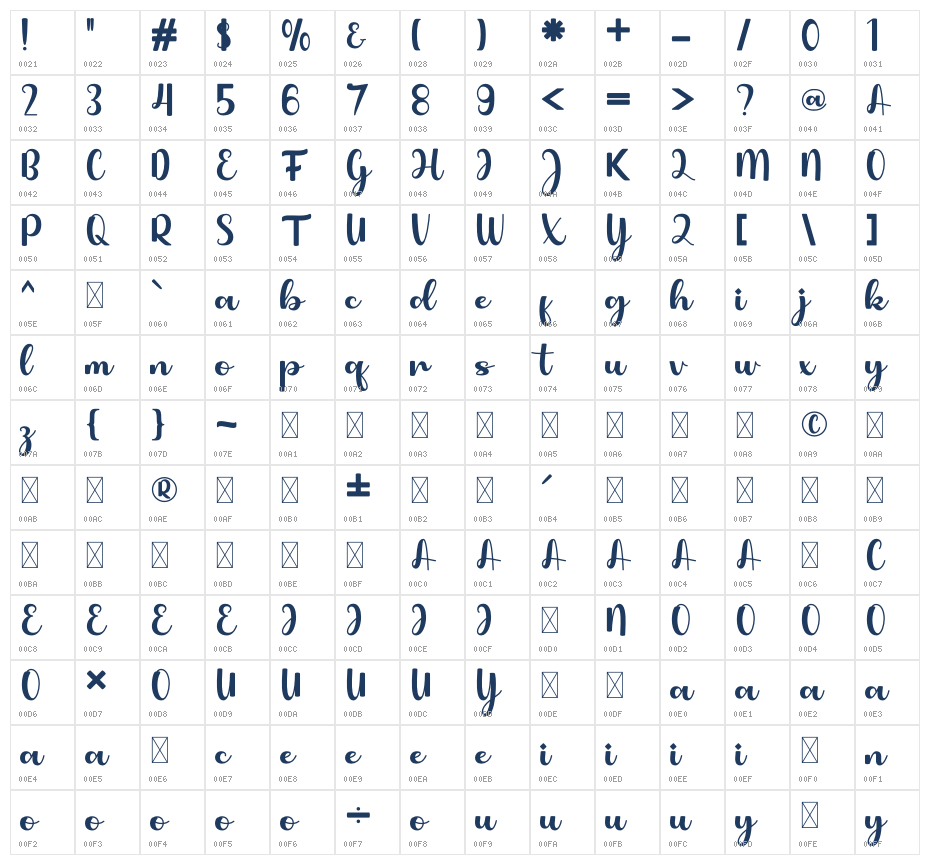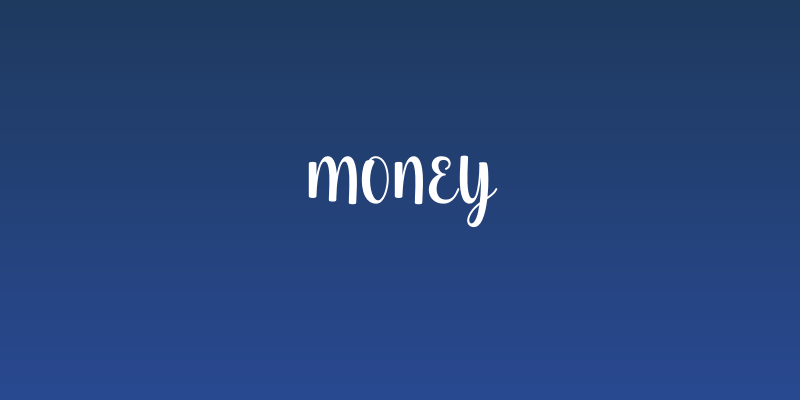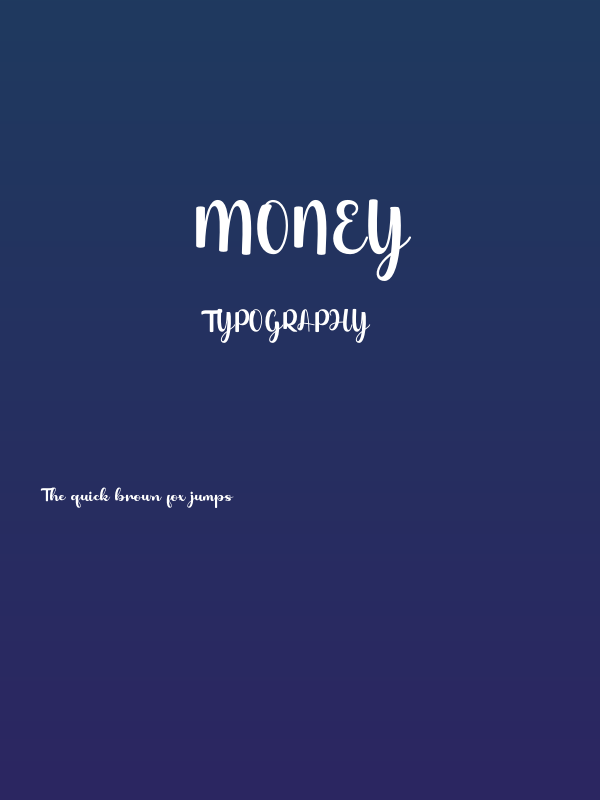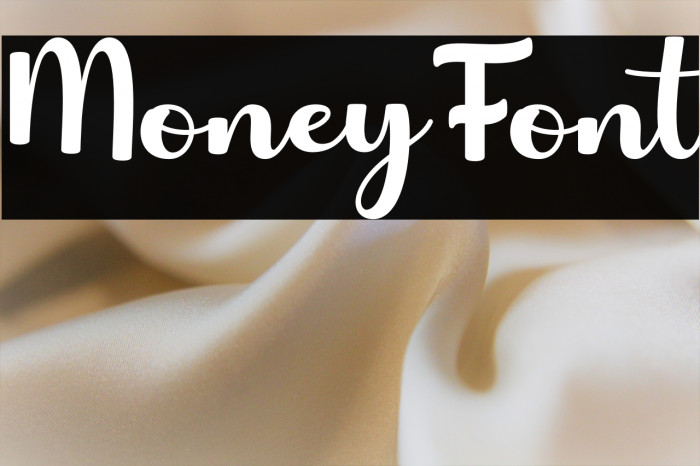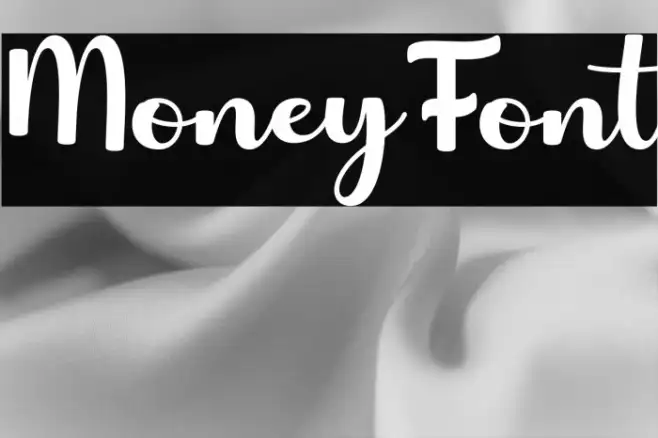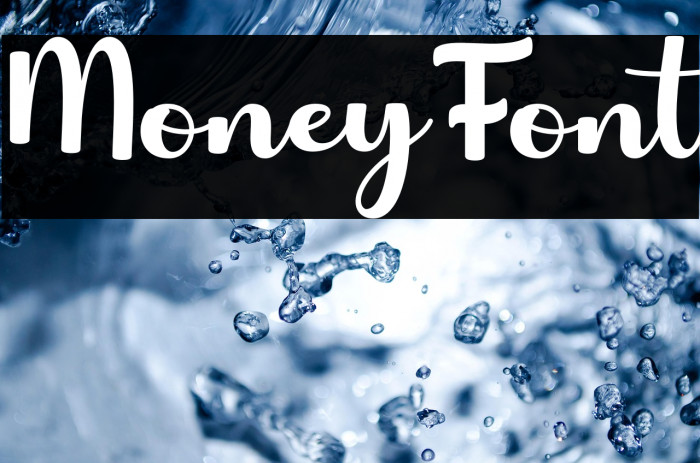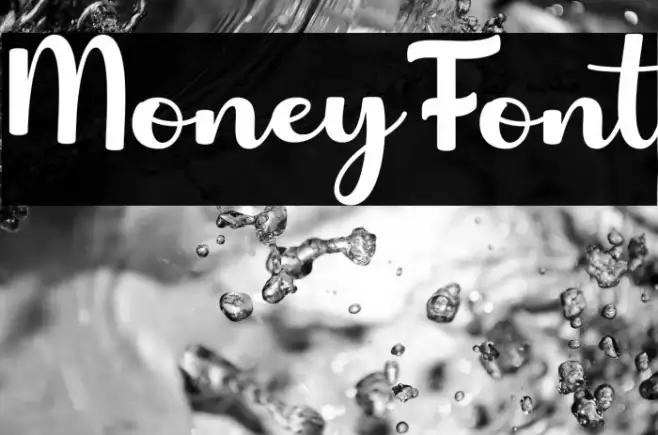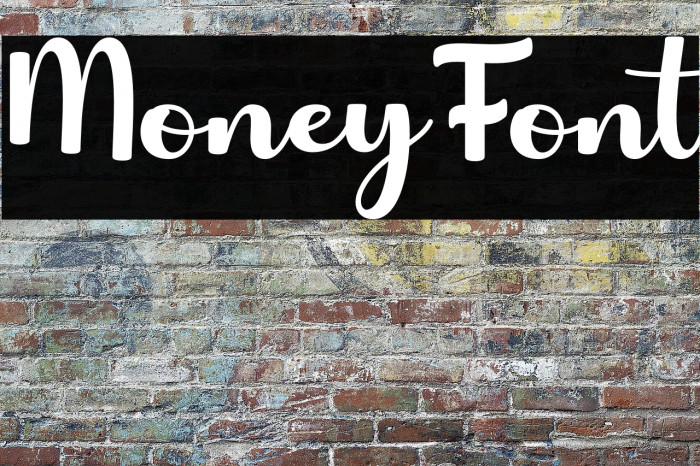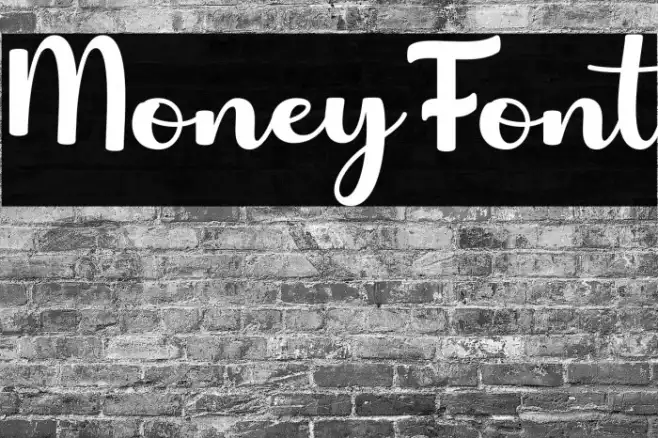
Money Font
Money Description
A playful, handwritten script font with a casual and friendly appearance, featuring smooth curves and varying stroke widths.
| Overall Style | Casual, Friendly, Handwritten |
| Use Case | Invitations, Greeting Cards, Branding, Logos |